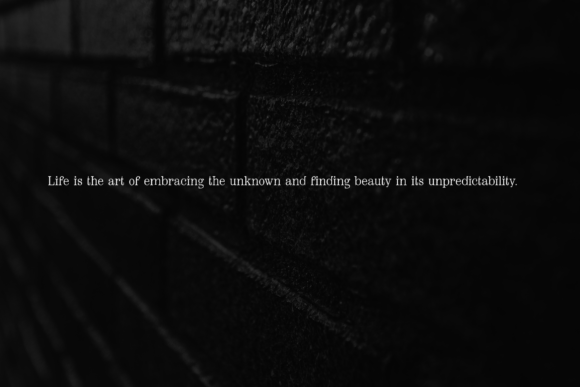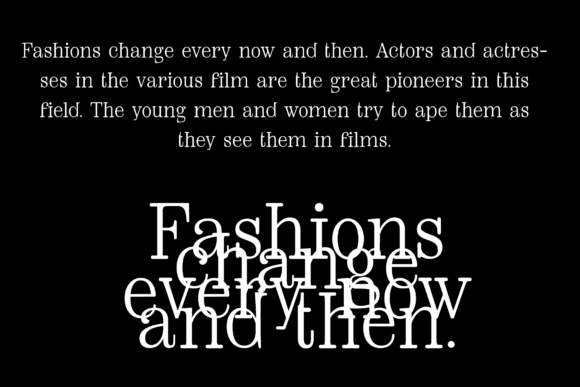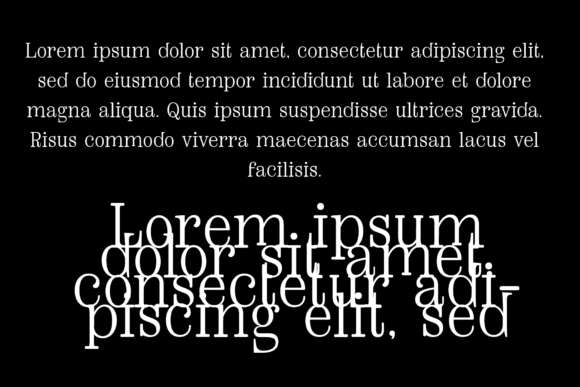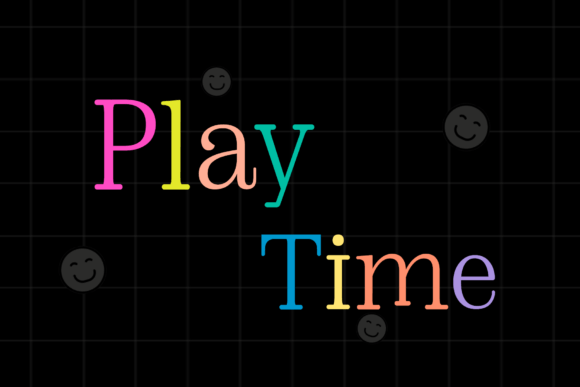
Gorogoro Font: The Perfect Choice for Designers and Crafters
Are you looking for a font that can add a touch of playfulness and casualness to your designs? Look no further than the Gorogoro font. This beautiful serif font is made with love and is perfect for a wide range of design needs, from clothing and greeting cards to branding and advertising.
What is Gorogoro Font?
Gorogoro is a serif font that boasts a unique and charming aesthetic. Its casual and playful look makes it an excellent choice for designers who want to add a personal touch to their work. The font is versatile and can be used for various design projects, including urban design, modern advertising, book titles, and special events.
Key Features of Gorogoro Font
- Serif Font: Gorogoro is a serif font, which means it has small lines or flourishes at the end of each letter. This gives the font a classic and elegant look.
- Casual and Playful: The font has a casual and playful vibe, making it perfect for designs that require a personal touch.
- Versatile: Gorogoro font can be used for a wide range of design needs, from clothing and greeting cards to branding and advertising.
- Easy to Read: The font is easy to read, even at small sizes, making it perfect for body text and captions.
Use Cases for Gorogoro Font
Gorogoro font is perfect for various design projects, including:
- Clothing and Fashion: Use Gorogoro font to create eye-catching labels, tags, and advertisements for your clothing brand.
- Greeting Cards: Add a personal touch to your greeting cards with Gorogoro font.
- Branding: Use Gorogoro font to create a unique and memorable brand identity.
- Urban Design: Gorogoro font is perfect for urban design projects, such as posters, flyers, and billboards.
- Modern Advertising: Use Gorogoro font to create modern and eye-catching advertisements.
- Book/Cover Title: Gorogoro font is perfect for book titles, especially for fiction and poetry books.
- Special Events: Use Gorogoro font to create invitations, posters, and flyers for special events, such as weddings and parties.
Why Choose Gorogoro Font?
There are many reasons why you should choose Gorogoro font for your design projects. Here are a few:
- Unique Aesthetic: Gorogoro font has a unique and charming aesthetic that will set your designs apart.
- High-Quality: Gorogoro font is a high-quality font that is designed to look great at any size.
- Support for Multiple Languages: The font supports multiple languages, making it perfect for designers who work with international clients.
Tips for Using Gorogoro Font
Here are a few tips for using Gorogoro font:
- Use it with Contrast: Use Gorogoro font with contrasting colors to make it stand out.
- Experiment with Sizes: Experiment with different font sizes to create visual interest.
- Pair it with Other Fonts: Pair Gorogoro font with other fonts to create a unique and interesting typography.
In conclusion, Gorogoro font is a beautiful and versatile serif font that is perfect for designers and crafters. Its casual and playful look makes it an excellent choice for a wide range of design needs. With its unique aesthetic, ease of use, and high-quality design, Gorogoro font is a great addition to any design project.